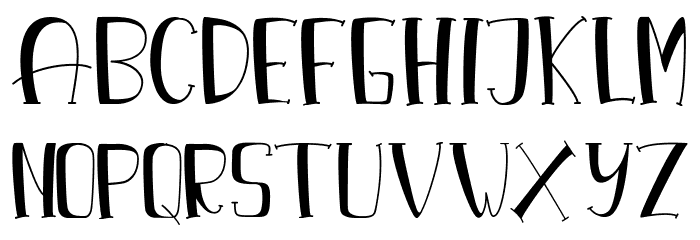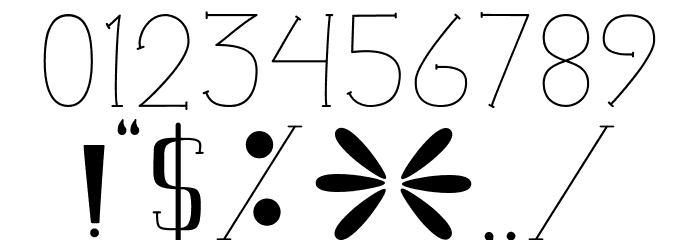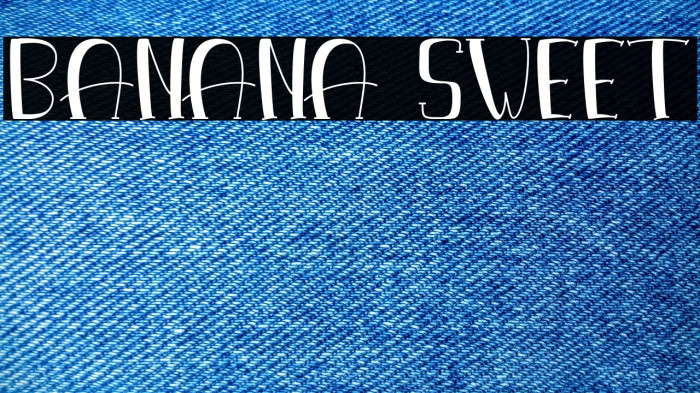
Banana Sweet Font
This font features a playful and whimsical design, characterized by its tall, narrow letterforms and distinctive, exaggerated serifs. The strokes vary in thickness, creating a dynamic and lively appearance. The uppercase letters are particularly striking, with a unique blend of curves and angles that give them a hand-drawn feel. The lowercase letters maintain this playful aesthetic, with a slightly more subdued style. The numerals are consistent with the overall design, offering a quirky yet readable appearance. Special characters are creatively designed, adding to the font's charm and versatility.
A playful, whimsical font with tall, narrow letterforms and exaggerated serifs.
- Proposed Projects: Ideal for children's books, playful branding, greeting cards, and creative posters.
- Overall Style: Whimsical